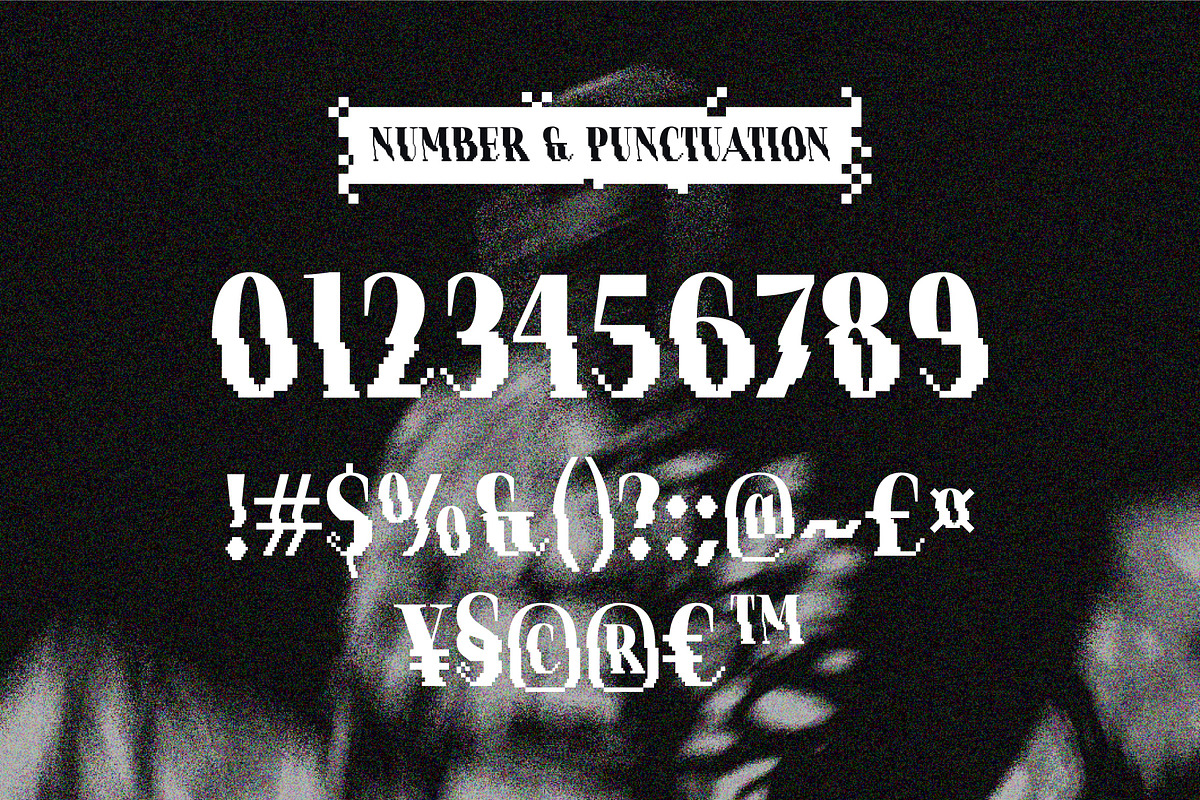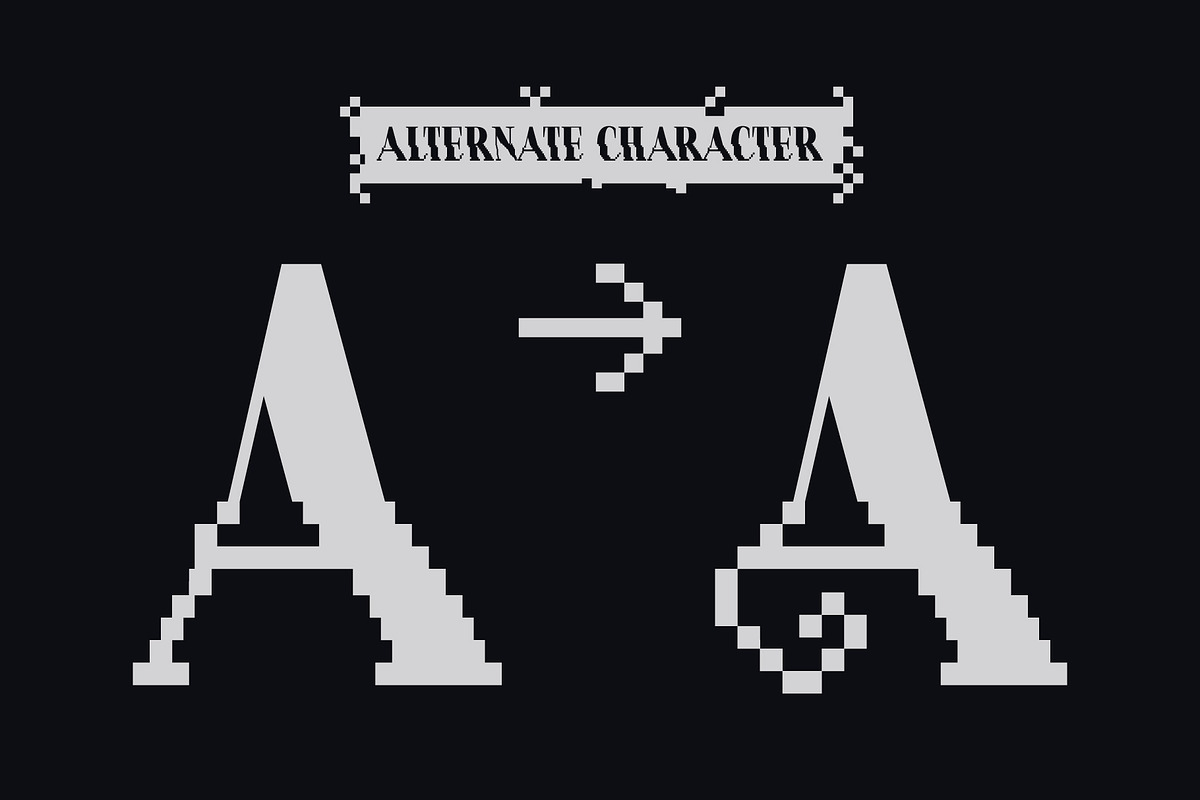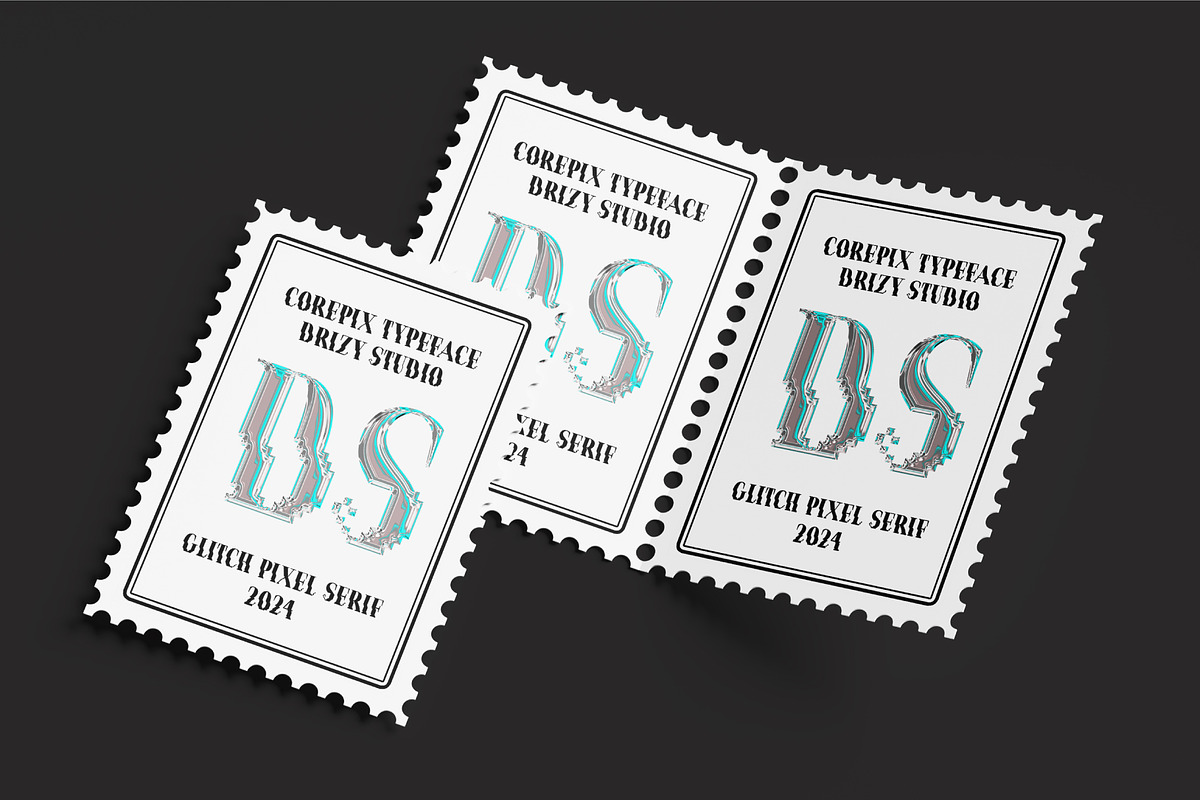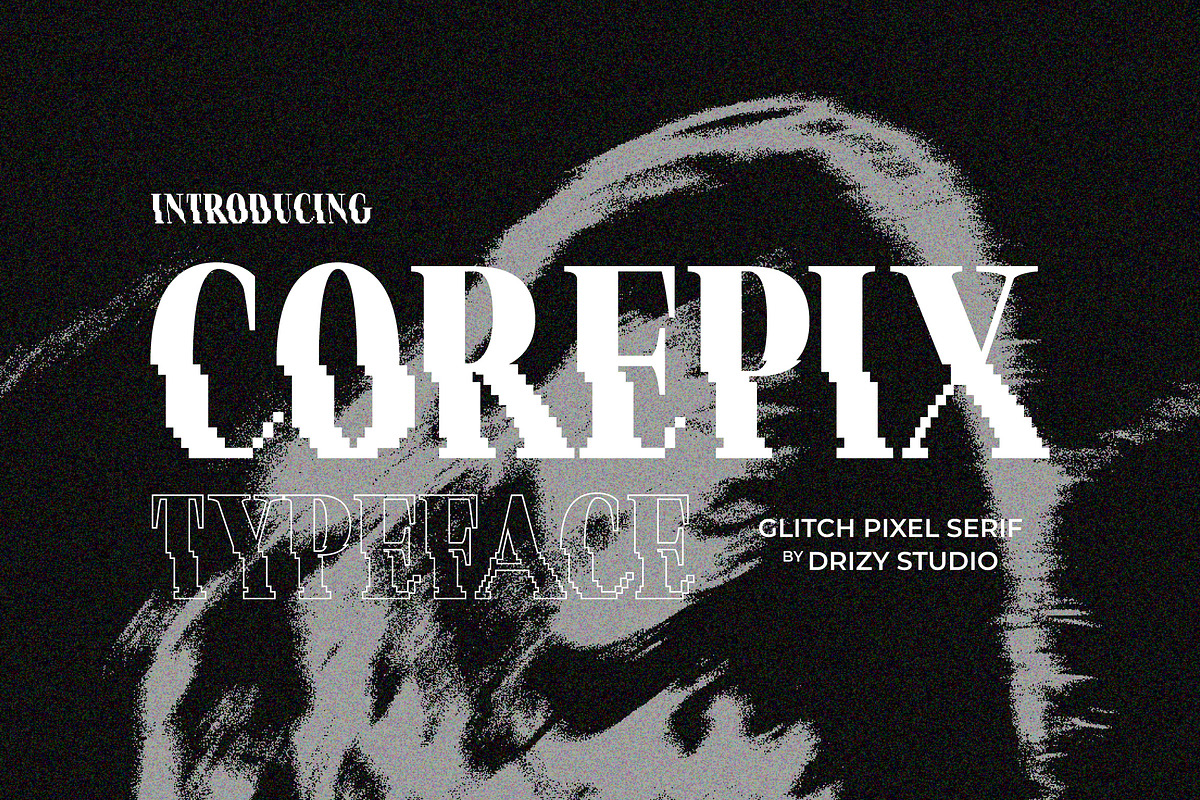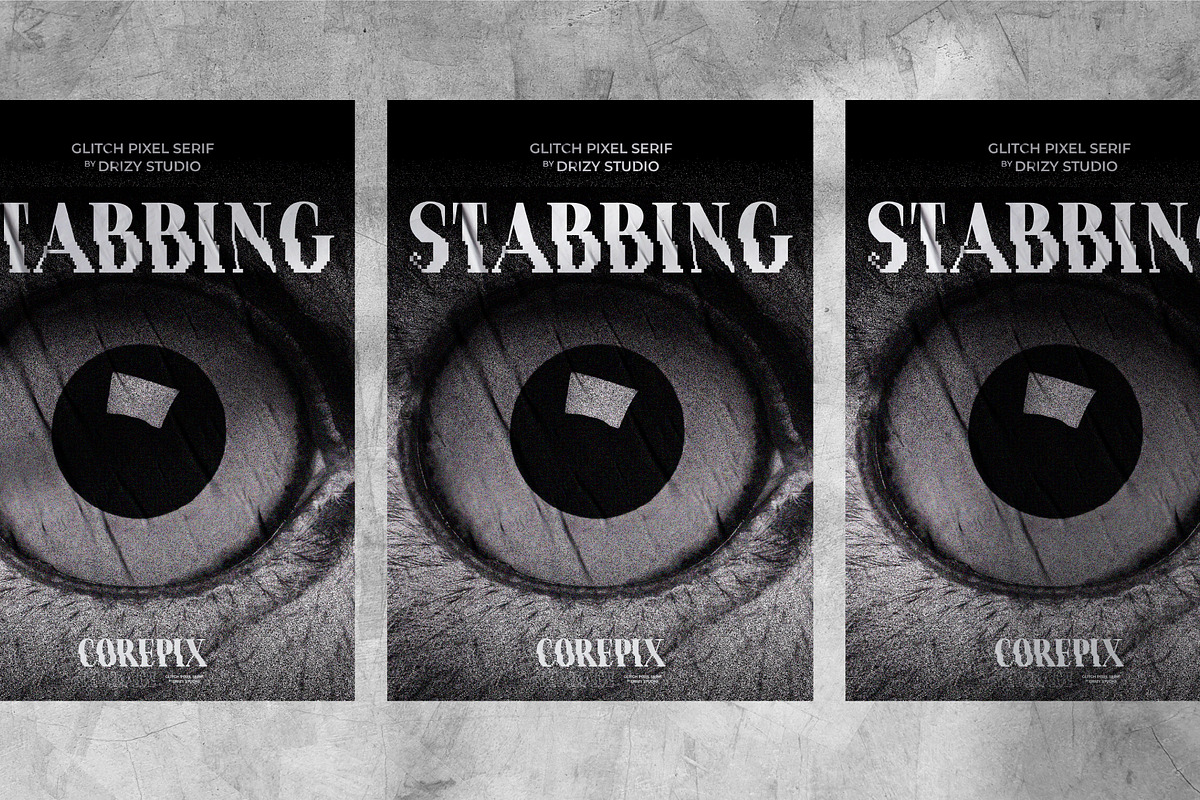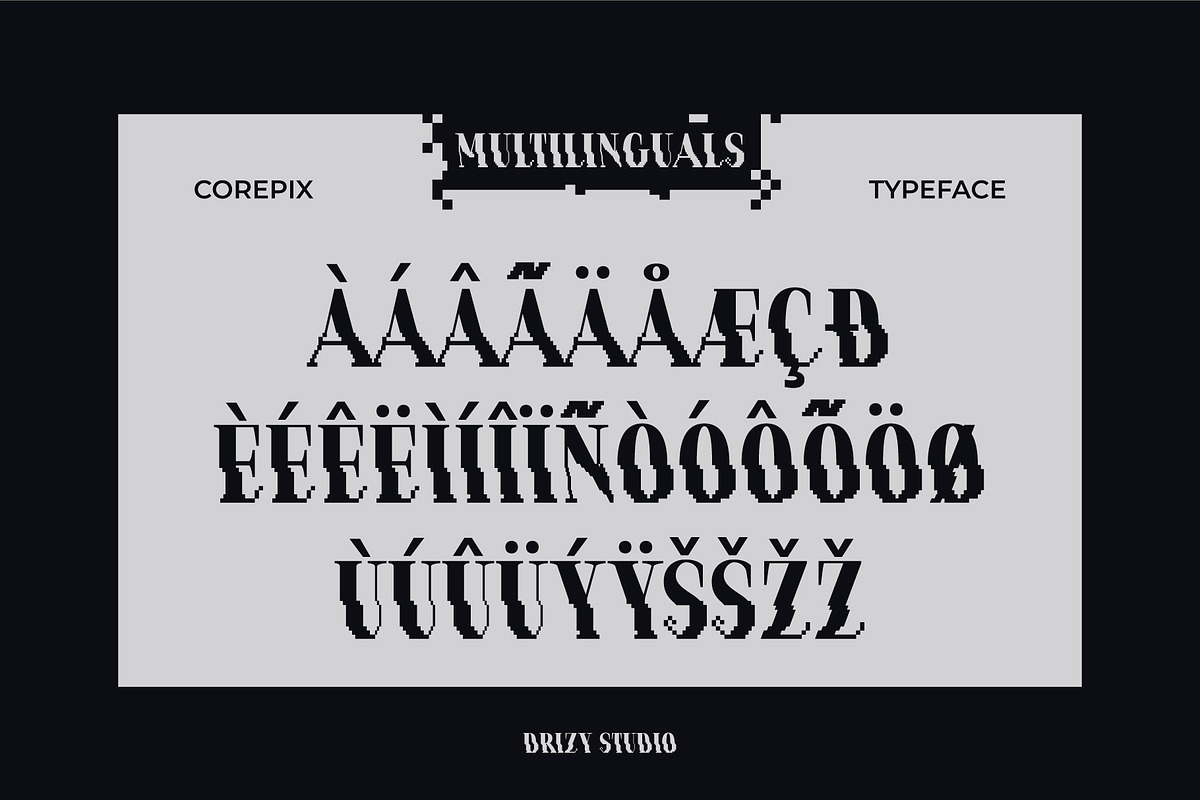
Corepix - Glitch Pixel Serif Font
Introducing Corepix - Glitch Pixel Serif Font, a cutting-edge and visually striking typeface that seamlessly combines the classic elegance of a serif font with a modern twist of glitchy pixel aesthetics. This Collide - Experimental results in a font that stands out, making it perfect for projects that demand a bold and contemporary look.
Corepix features: All Caps Punctuation & Numbers Multilingual Alternates
Elevate and explore the design possibilities with this serif glitch font!